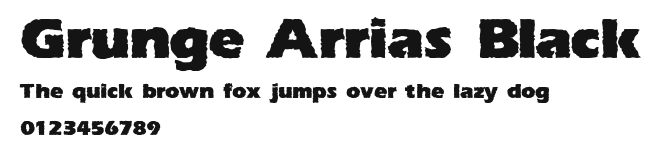
• Font Name: Grunge Arrias Black
• Full Font Name: Grunge Arrias Black
Grunge Arrias Black.ttf is a modern, elegant sans-serif font designed for ultimate readability and visual harmony. Perfect for branding, headlines, web design, and print materials.